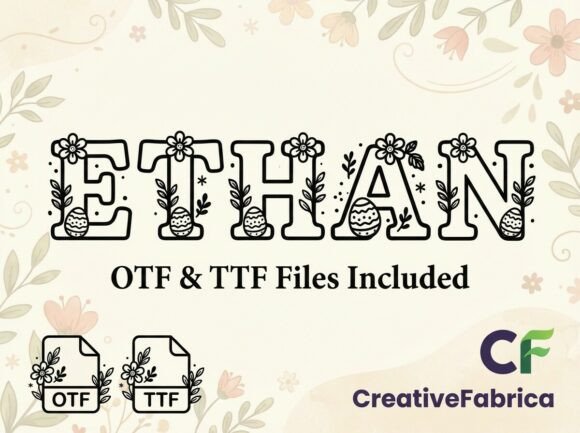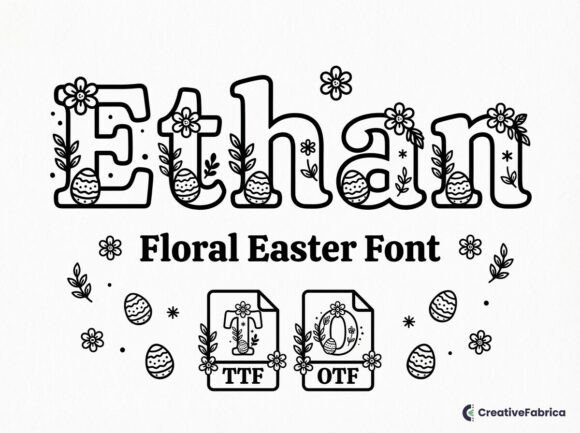
Ethan Font: The Ultimate Decorative Display Font for Creative Projects
In the world of typography, a font can make or break a design. If you’re a creator looking to add a touch of uniqueness and sophistication to your projects, look no further than the Ethan Font. This stunning decorative display font is designed to be the center of attention, featuring unique artistic elements and a strong visual personality that sets it apart from the ordinary.
Unleash Your Creativity with Ethan Font
With its intricate details and creative letterforms, the Ethan Font is perfect for high-impact designs where the typography needs to do the talking. Whether you’re designing a modern poster, a unique brand identity, or eye-catching social media content, this font adds an instant “wow” factor to any project. The Ethan Font is versatile enough for bold headlines, artistic logos, and creative packaging, while maintaining a professional and polished finish.
Ideal for a Variety of Design Projects
The Ethan Font is perfect for a range of design projects, including:
- Poster Design: Create headlines that people can’t look away from. The Ethan Font’s bold and eye-catching design makes it perfect for posters, flyers, and other print materials.
- Branding & Logos: Build a unique identity for creative businesses. The font’s unique artistic elements and strong visual personality make it ideal for logos, branding, and identity design.
- Apparel & Merch: Perfect for T-shirts, hoodies, and tote bag designs. The Ethan Font’s bold and creative design makes it perfect for apparel and merchandise design.
- Social Media: Make your quotes and announcements stand out in the feed. The font’s eye-catching design makes it perfect for social media graphics, quotes, and announcements.
- Packaging: Give your products a premium feel with the Ethan Font’s creative and polished design.
Key Features of the Ethan Font
The Ethan Font boasts a range of key features that make it the perfect choice for creative projects:
- Unique Artistic Elements: The font features unique artistic elements that set it apart from other fonts.
- Strong Visual Personality: The font has a strong visual personality that makes it perfect for high-impact designs.
- Intricate Details: The font features intricate details that add a touch of sophistication to any design.
- Creative Letterforms: The font’s creative letterforms make it perfect for bold headlines, artistic logos, and creative packaging.
- Versatile: The font is versatile enough for a range of design projects, from posters to social media graphics.
Why Choose the Ethan Font?
With so many fonts available, why choose the Ethan Font? Here are just a few reasons:
- Adds a Touch of Sophistication: The Ethan Font adds a touch of sophistication to any design, making it perfect for creative projects.
- Instant “Wow” Factor: The font adds an instant “wow” factor to any project, making it perfect for high-impact designs.
- Perfect for Creative Projects: The font is perfect for creative projects, from posters to social media graphics.
- Professional and Polished Finish: The font maintains a professional and polished finish, making it perfect for branding and identity design.
In conclusion, the Ethan Font is a stunning decorative display font that is perfect for creative projects. With its unique artistic elements, strong visual personality, and intricate details, this font is sure to add a touch of sophistication to any design. Whether you’re designing a modern poster, a unique brand identity, or eye-catching social media content, the Ethan Font is the perfect choice. So why wait? Download the Ethan Font today and take your designs to the next level!